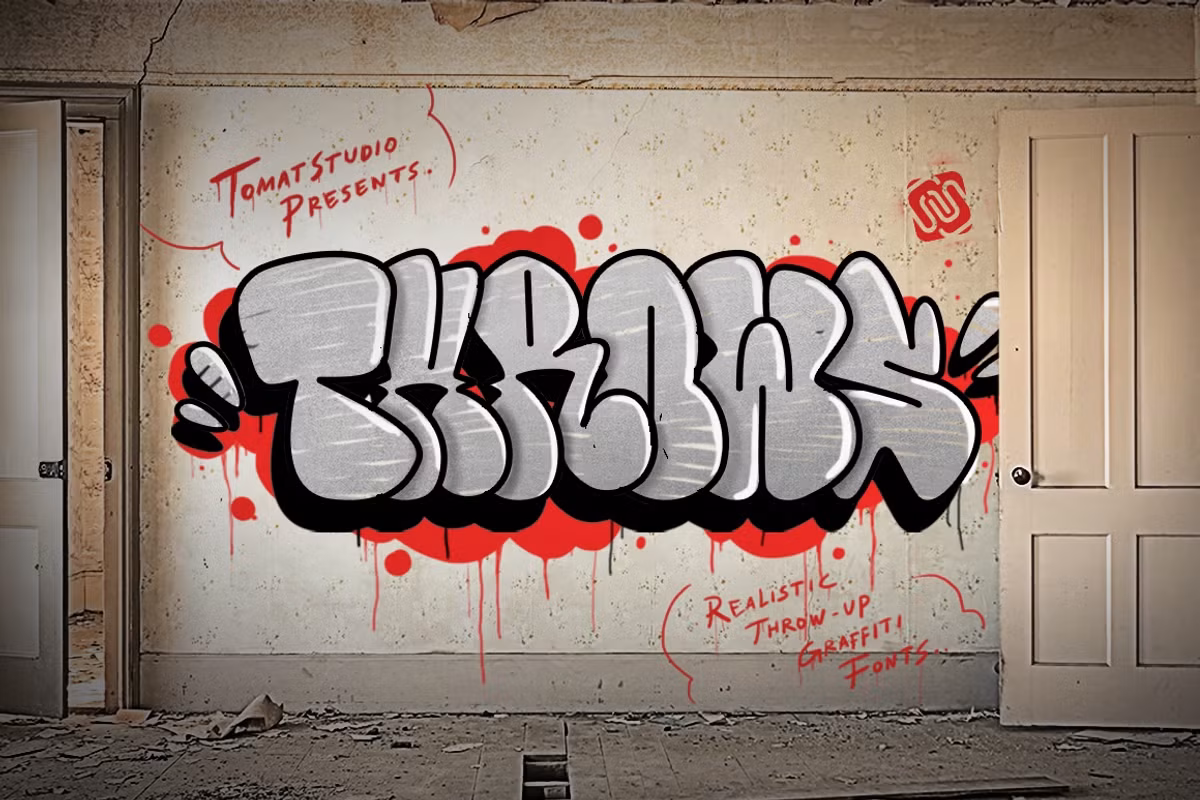
Graffiti Inspired Fonts | Throws Free Download
Graffiti Inspired Fonts | Throws Free Download is a bold and urban-inspired typeface designed to capture the raw, expressive energy of street art. With its dynamic strokes, sharp edges, and rebellious character, this font is perfect for projects that need a gritty, youthful vibe, such as posters, streetwear branding, album covers, or graffiti-style graphics.
Graffiti Inspired Fonts | Throws Free Download channels the essence of spray-painted art with irregular letterforms and spontaneous design, giving it an authentic street feel. Whether you're working on a music project, a skate brand, or any urban design, this font brings a sense of power and individuality to your message.